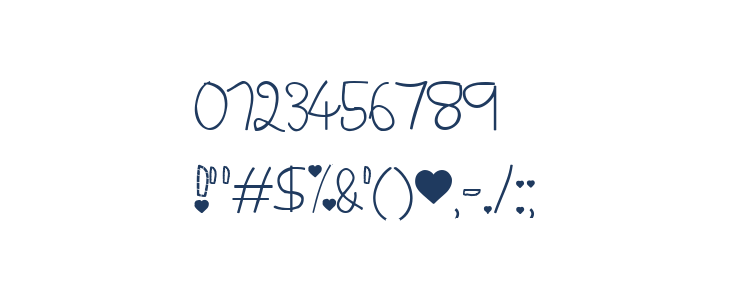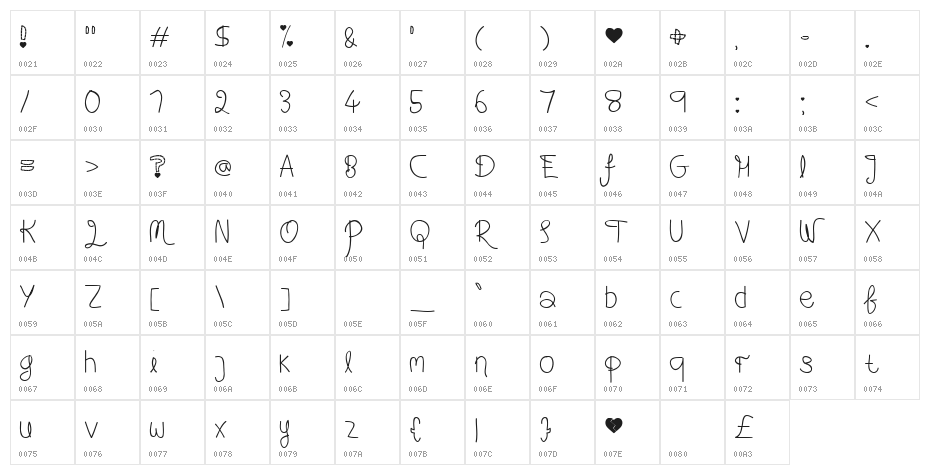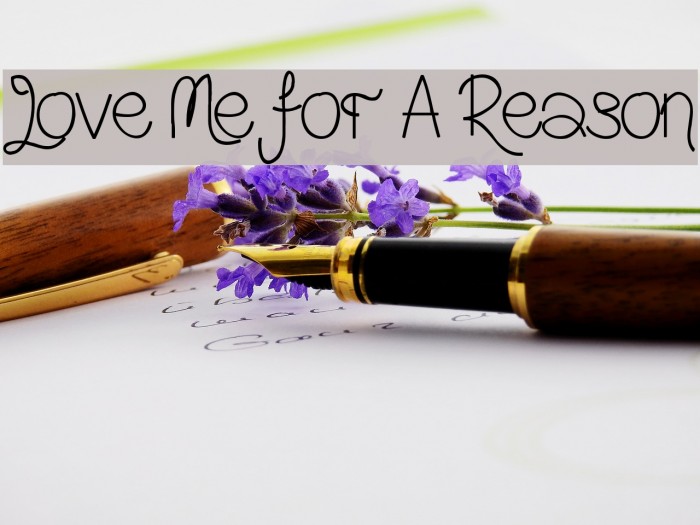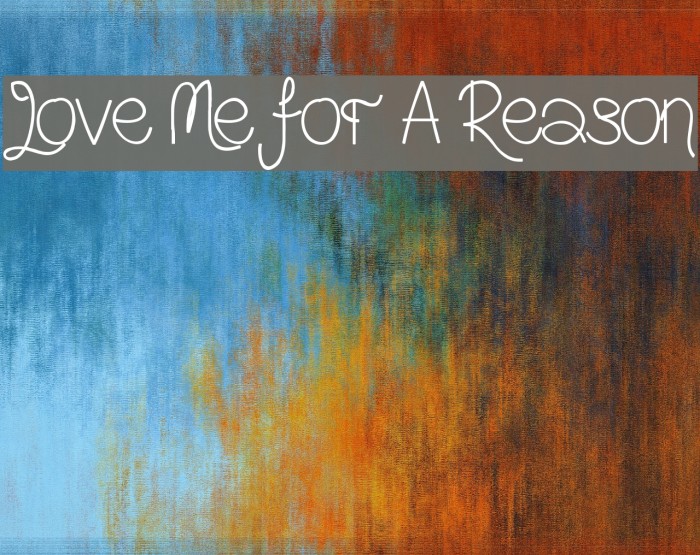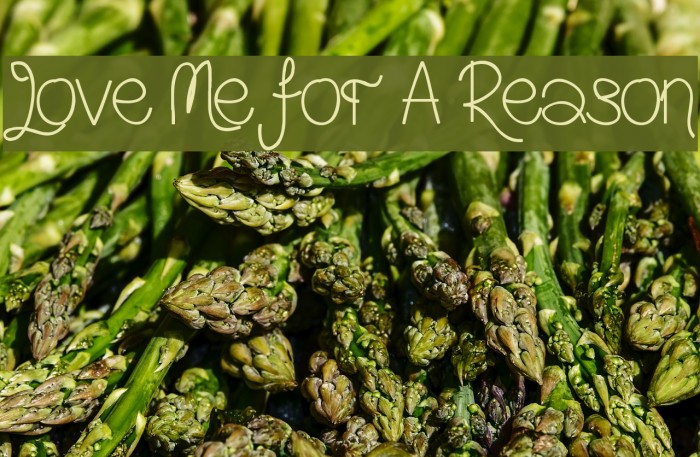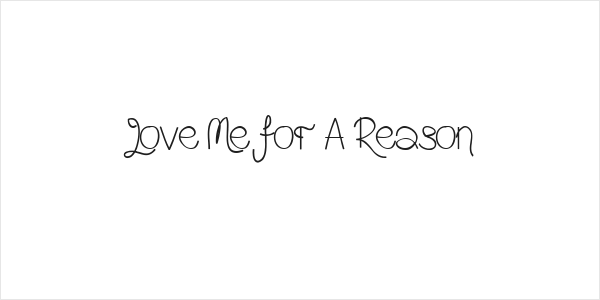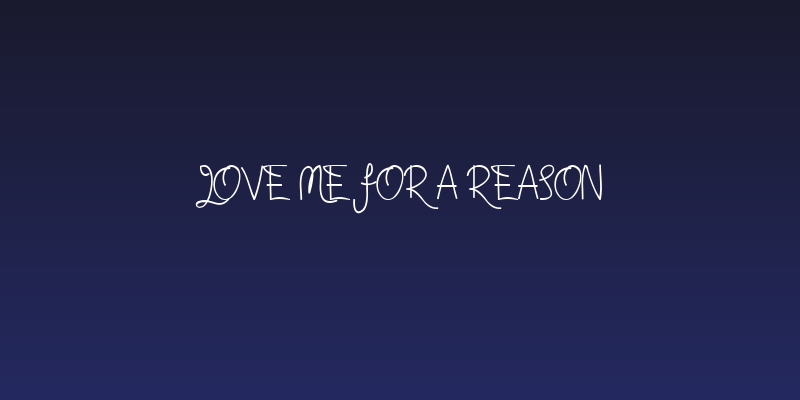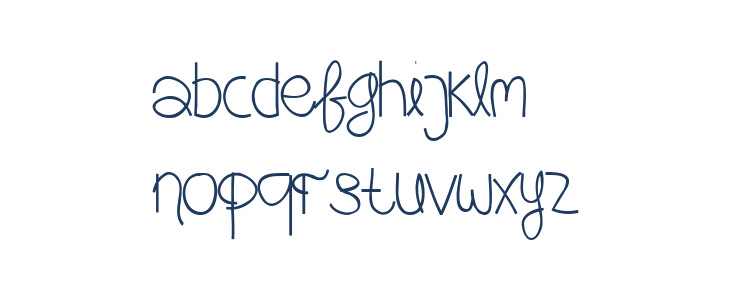
Love Me For A Reason Font
Love Me For A Reason Description
This font features a playful and whimsical style with a handwritten appearance. The letters are characterized by their flowing, cursive-like forms, which give them a lively and dynamic feel. The uppercase letters are tall and slender, while the lowercase letters maintain a consistent height, creating a harmonious balance. The numerals are rounded and match the overall playful aesthetic. Special characters, including hearts and stars, add to the font's charm and versatility. This font is ideal for projects that require a personal touch or a sense of fun and creativity.
Use CaseHeadlines, Logos, Invitations
Proposed ProjectsGreeting cards, children's books, playful branding, and social media graphics.